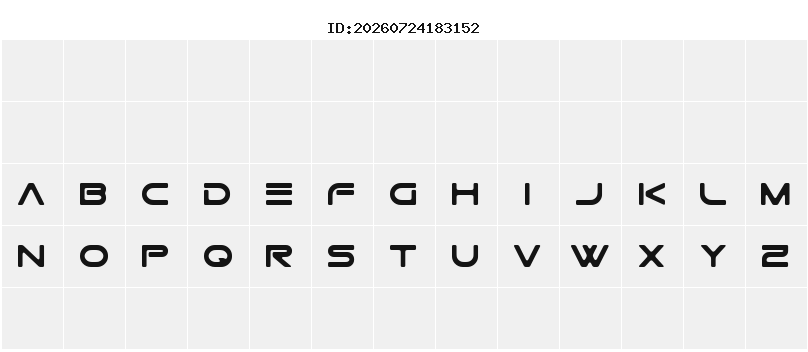
Gtek Technology Preview
• Font Name: Gtek Technology
• Full Font Name: Gtek Technology
• Version: Version 1.00 September 22, 2013, initial release
• Designer: Carlos Matteoli a.k.a. Qbotype
About Gtek Technology.ttf
Gtek Technology.ttf is a modern, elegant sans-serif font designed for ultimate readability and visual harmony. Perfect for branding, headlines, web design, and print materials.